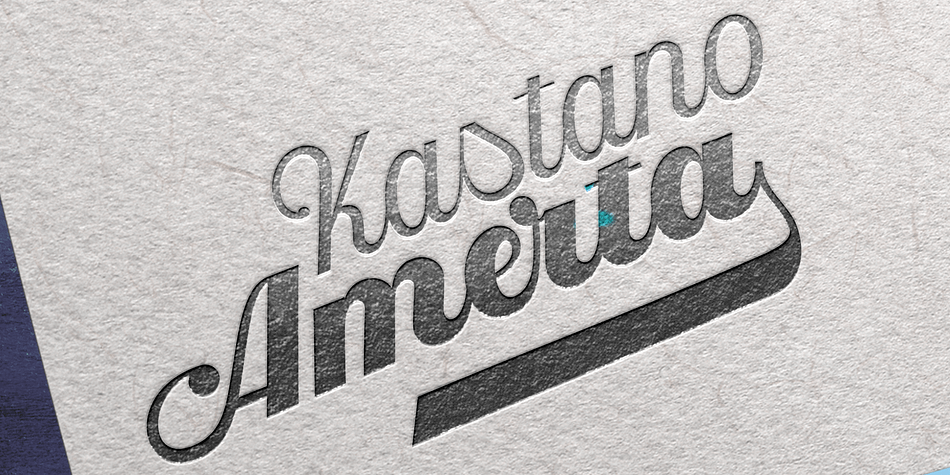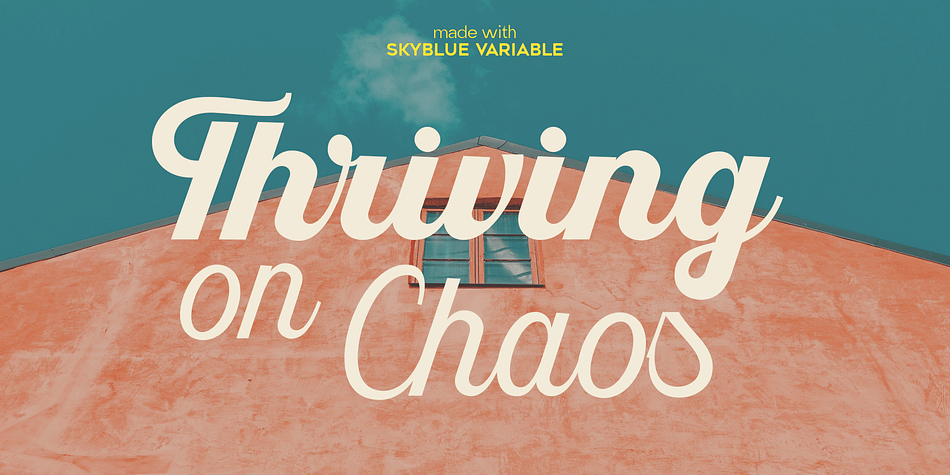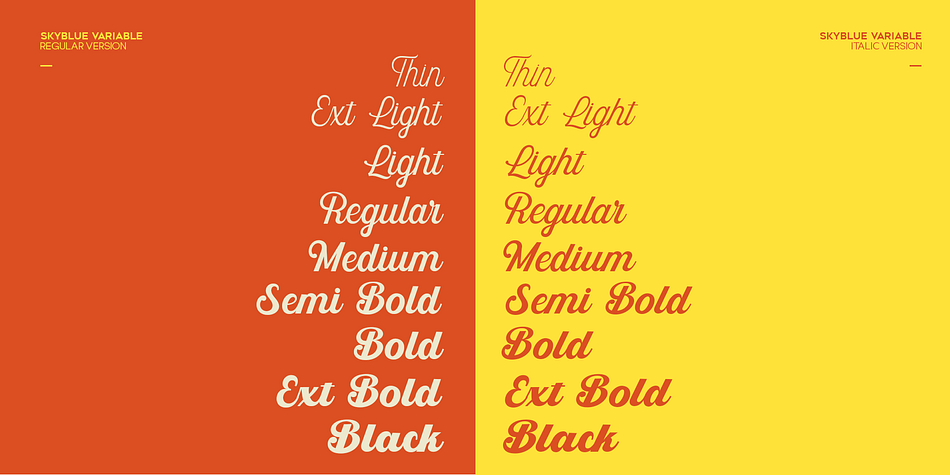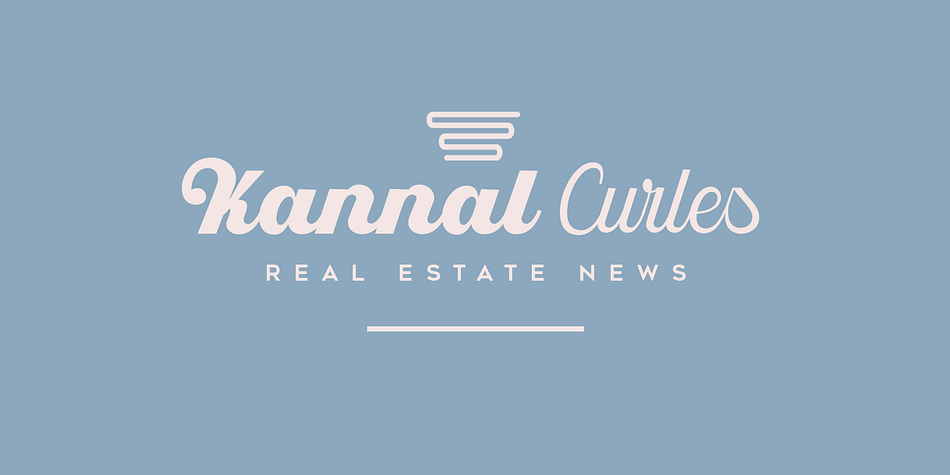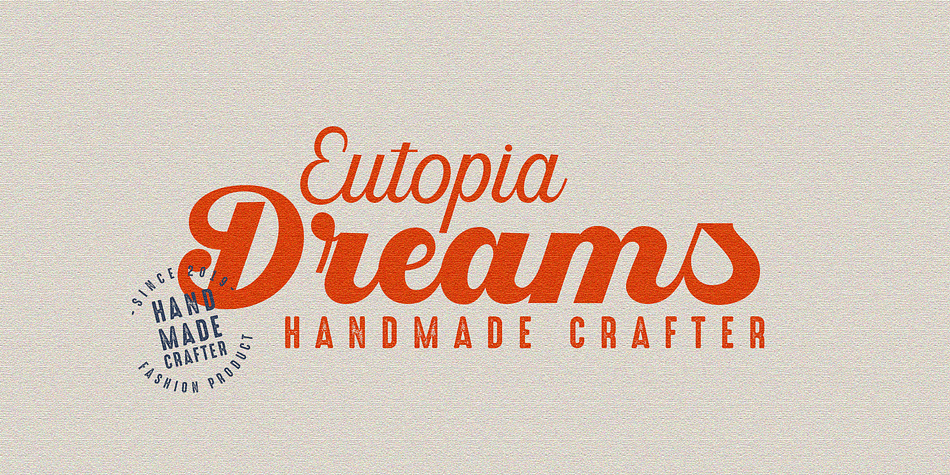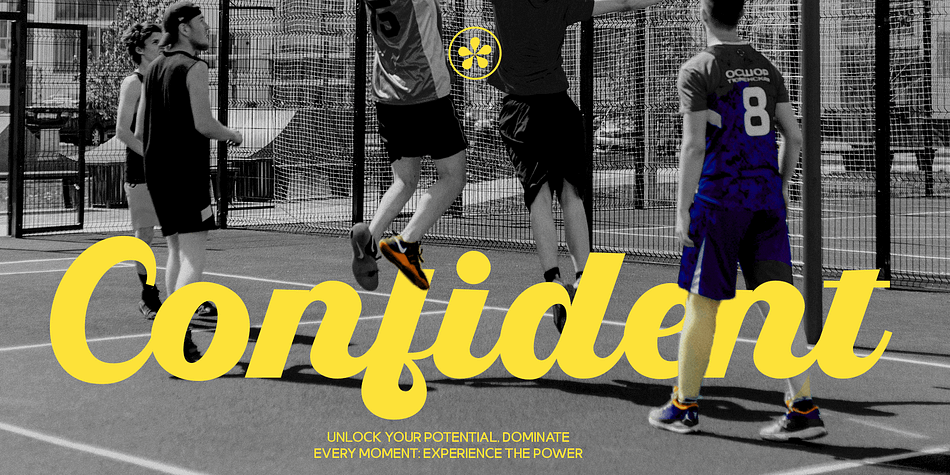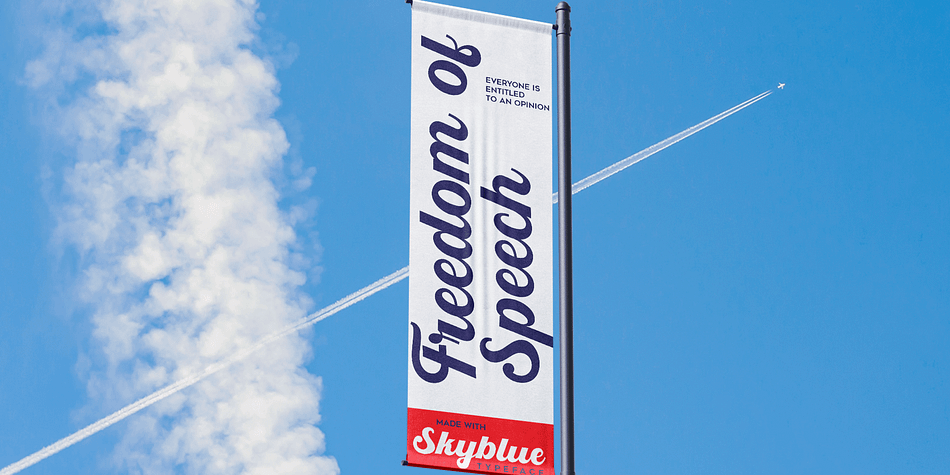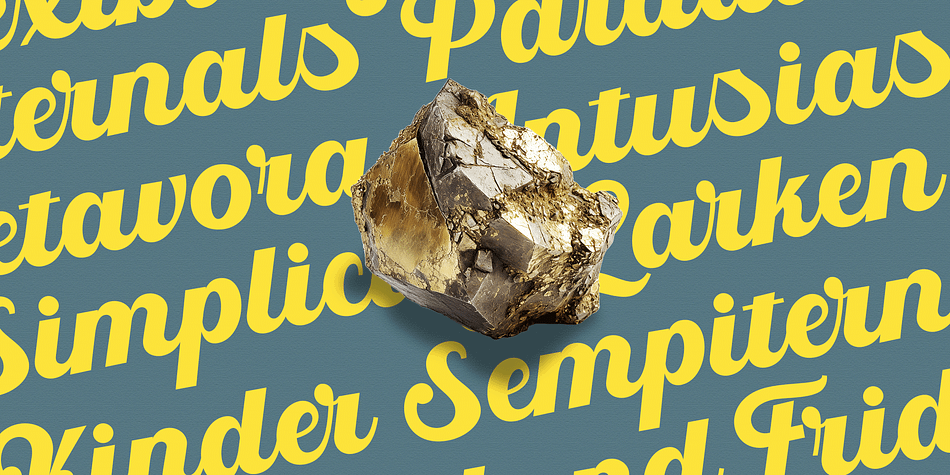
Skyblue Script
Skyblue Script is a script font family. This typeface has eighteen styles and was published by LetterFresh.
Introducing Skyblue Script- Font Family, a new curve that carefully crafted and balanced script typefaces with personality. You can use it as a logo, badge, emblem, packaging, title, poster, t-shirt/clothing, greeting card, wedding invitation, etc.
Flowing characters are ideal for creating engaging messages. Mix and match Skyblue Script- Font Family with a set of weights to suit your project.